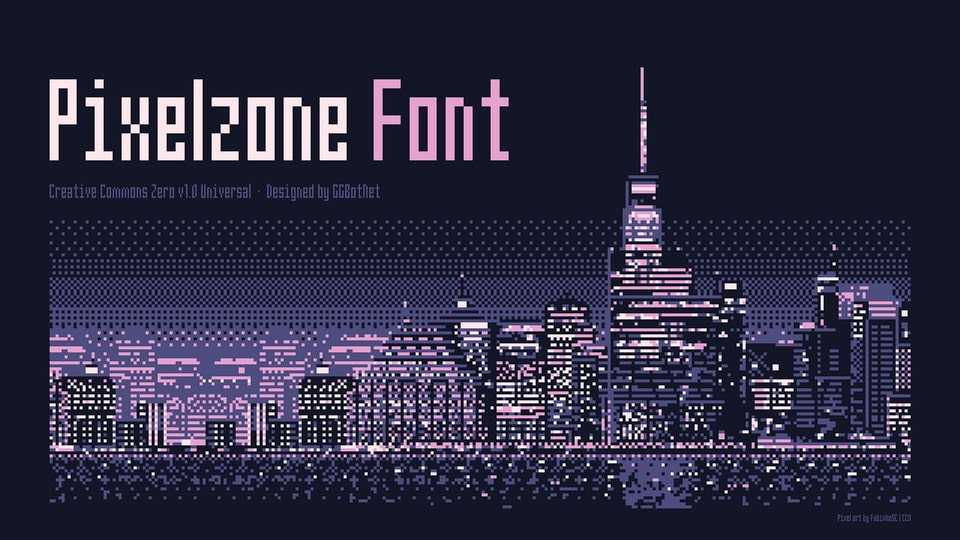
Download Pixelzone font, a bold, retro-inspired pixel art typeface that captures the essence of classic 8-bit and 16-bit gaming aesthetics with its blocky, geometric design.